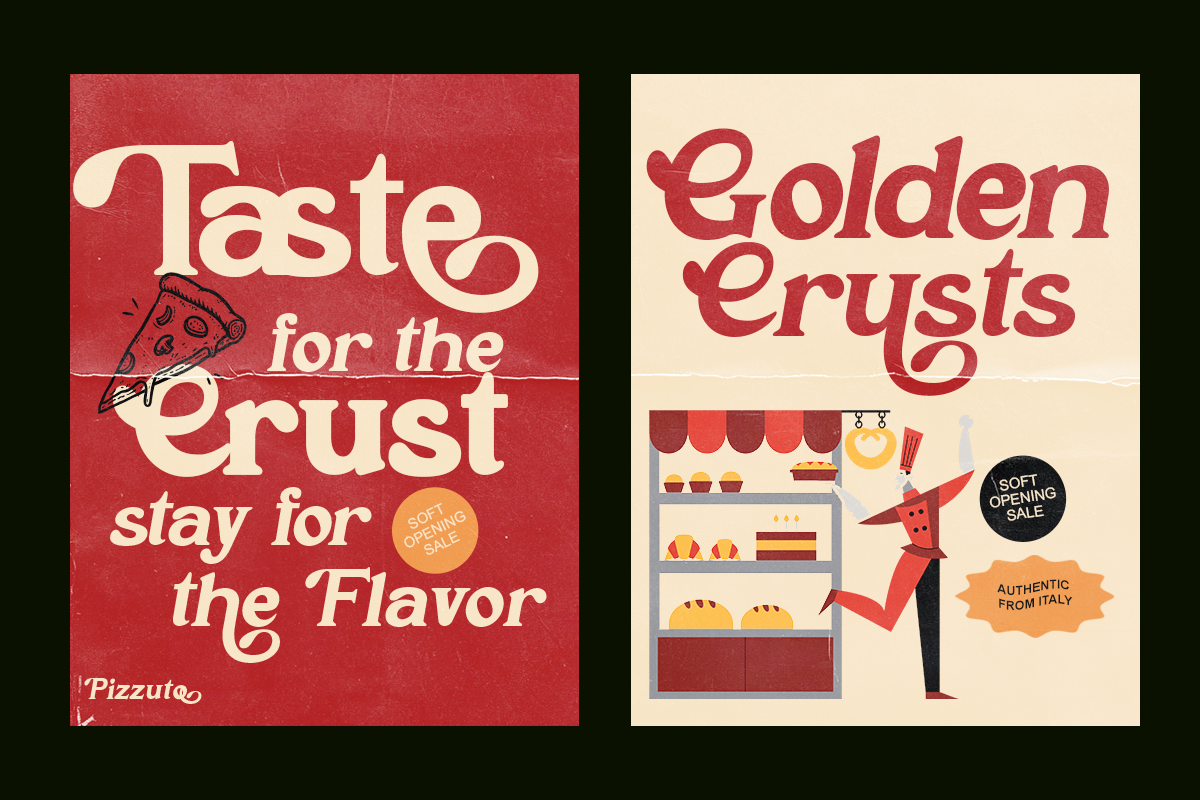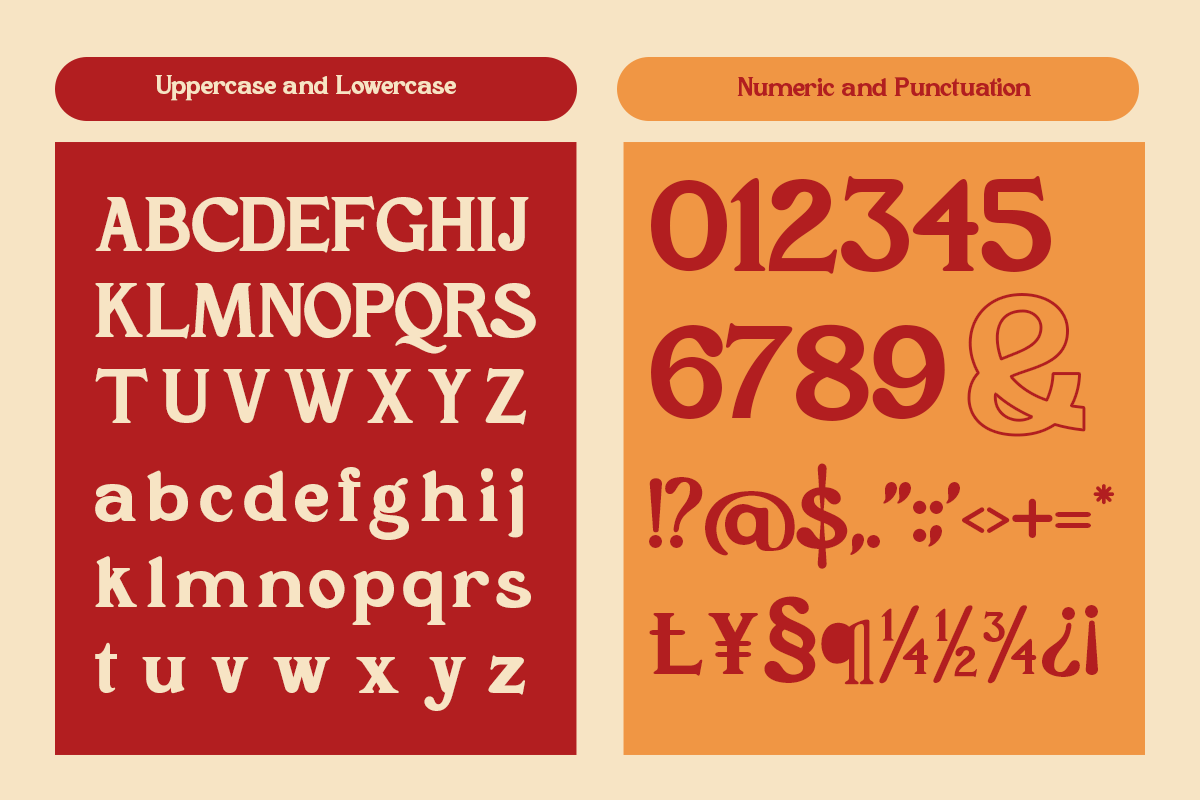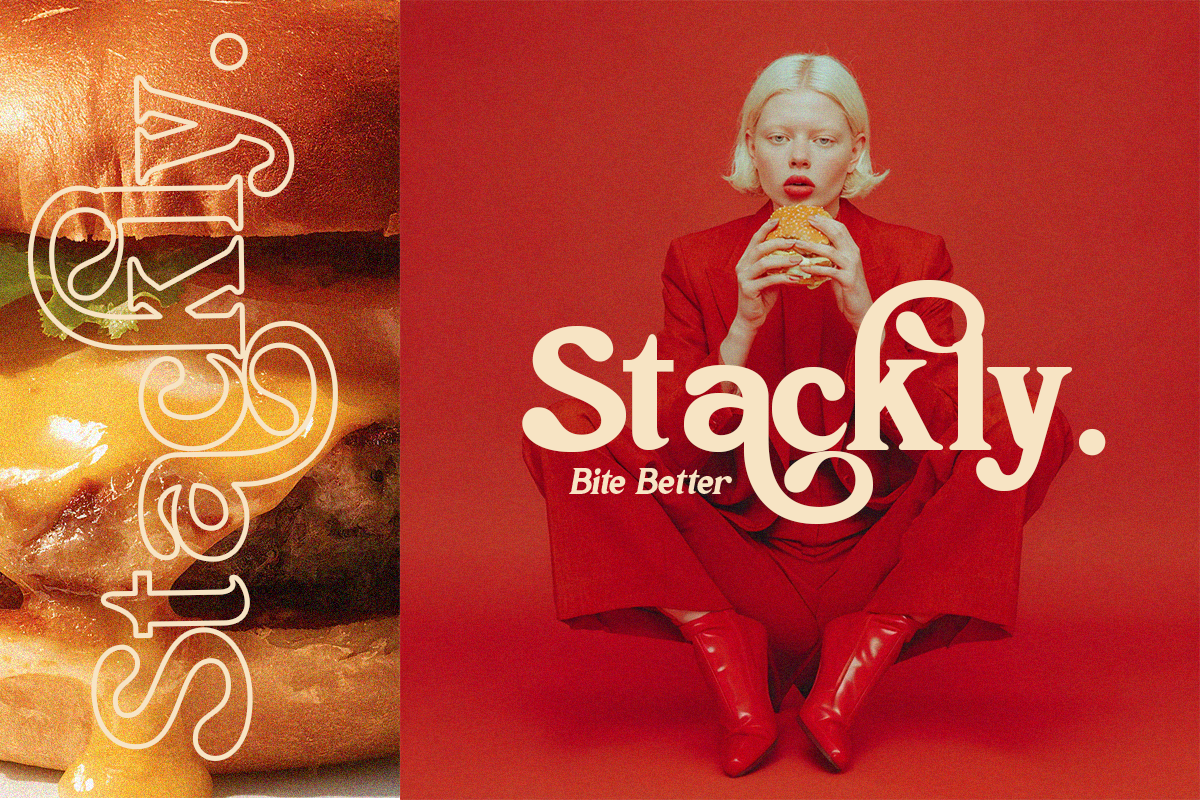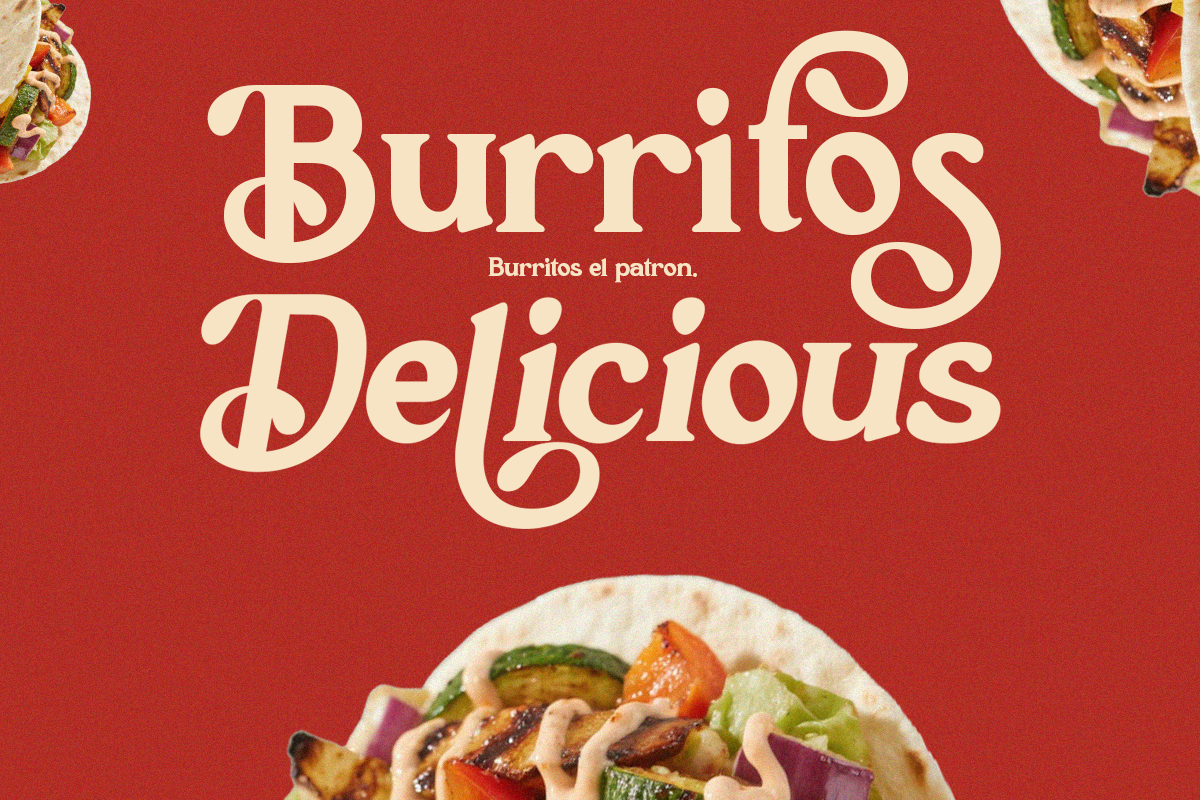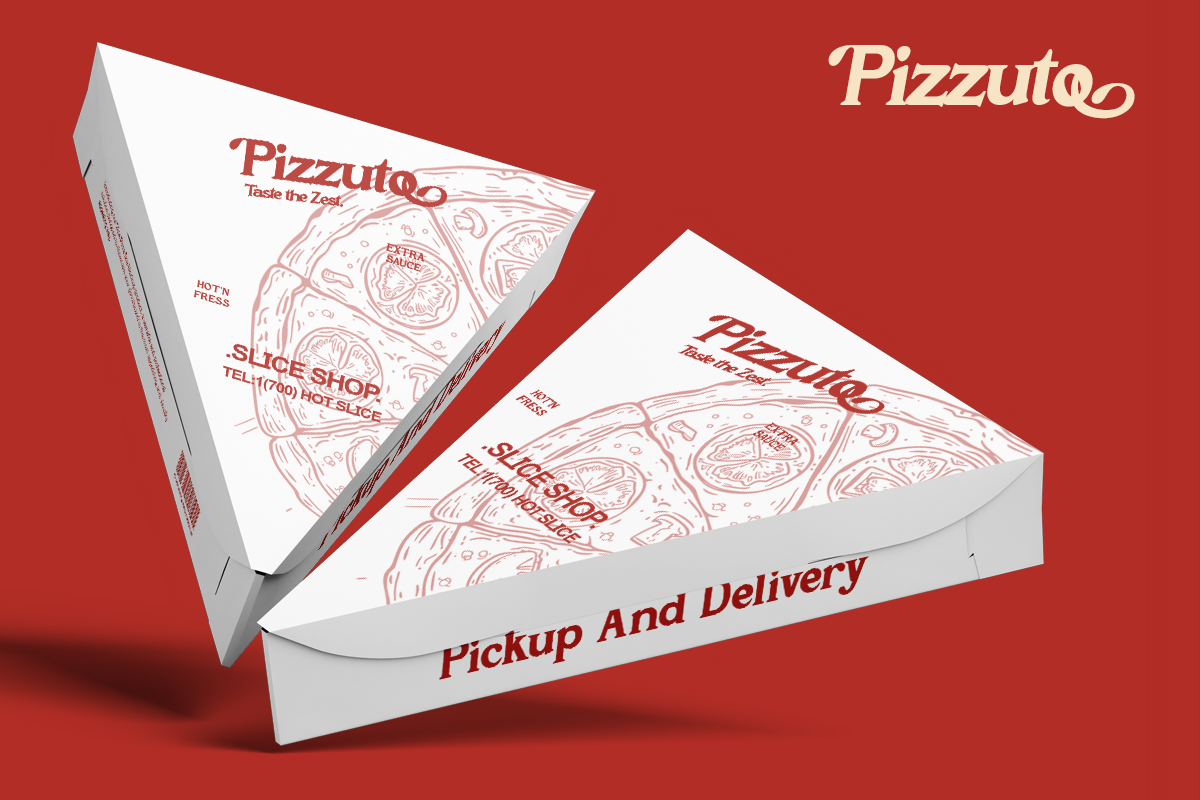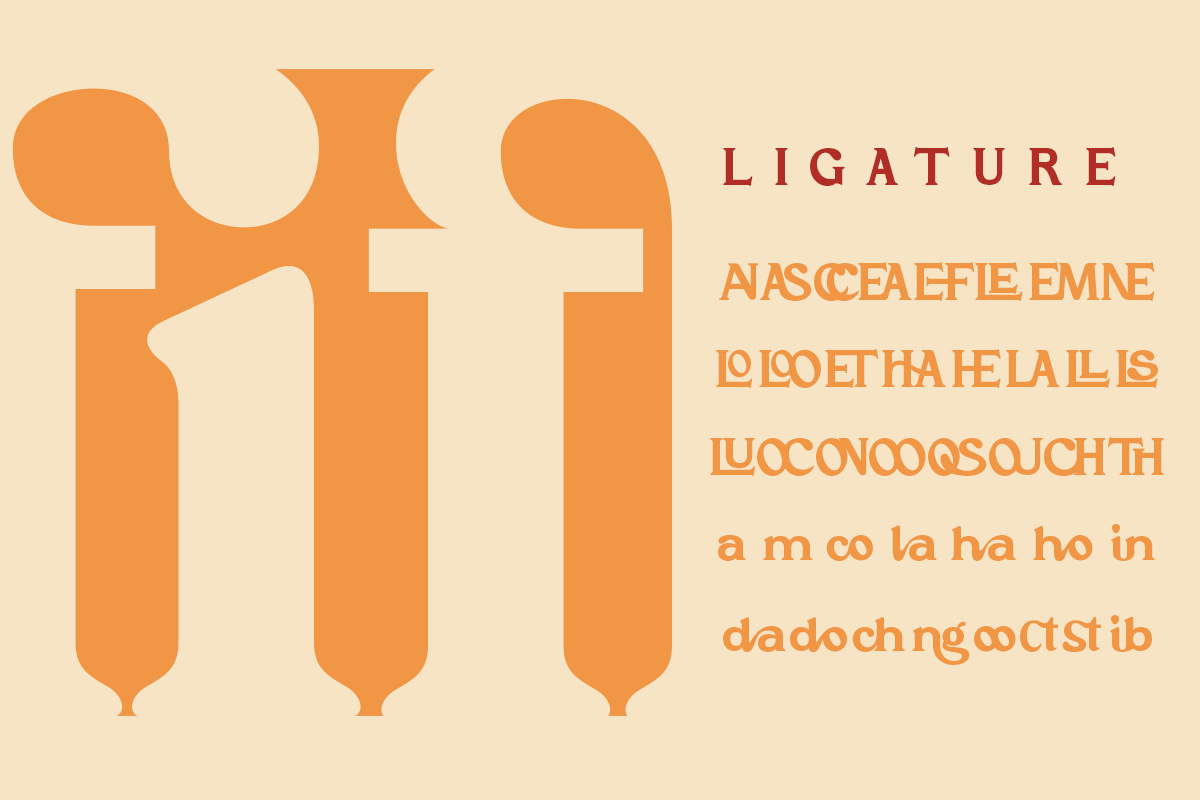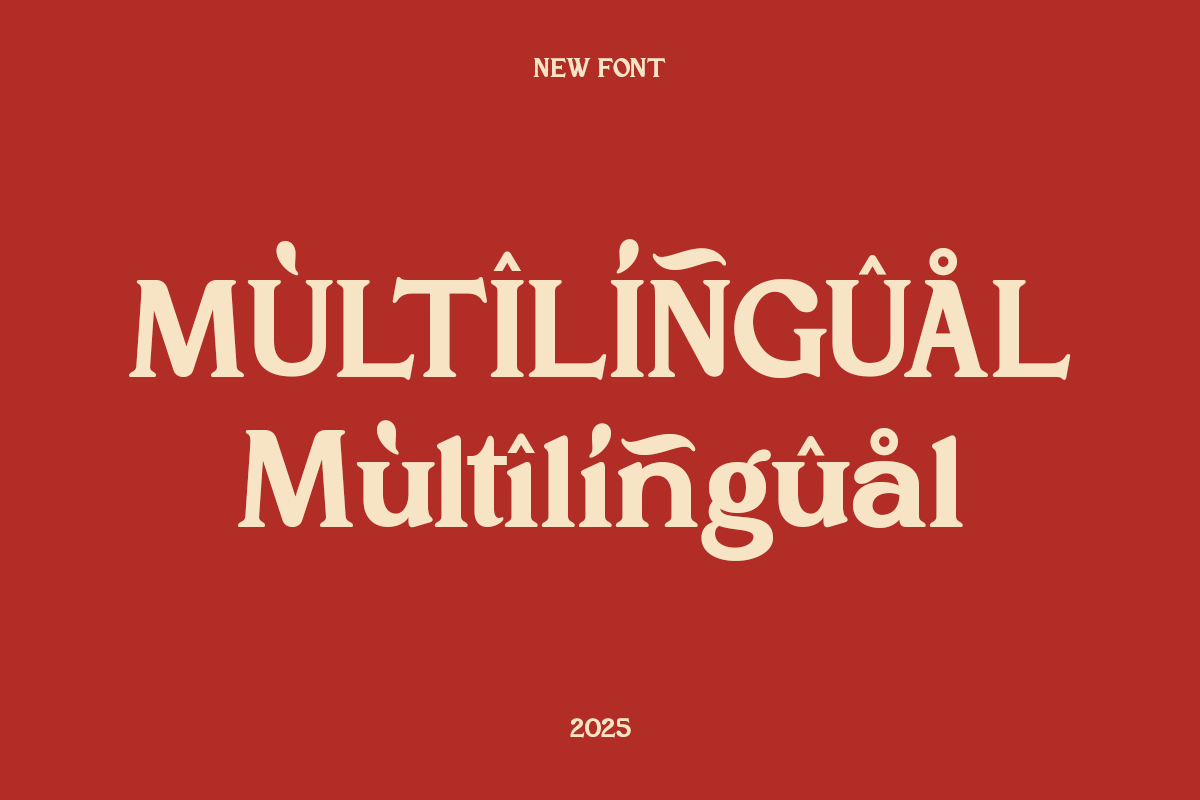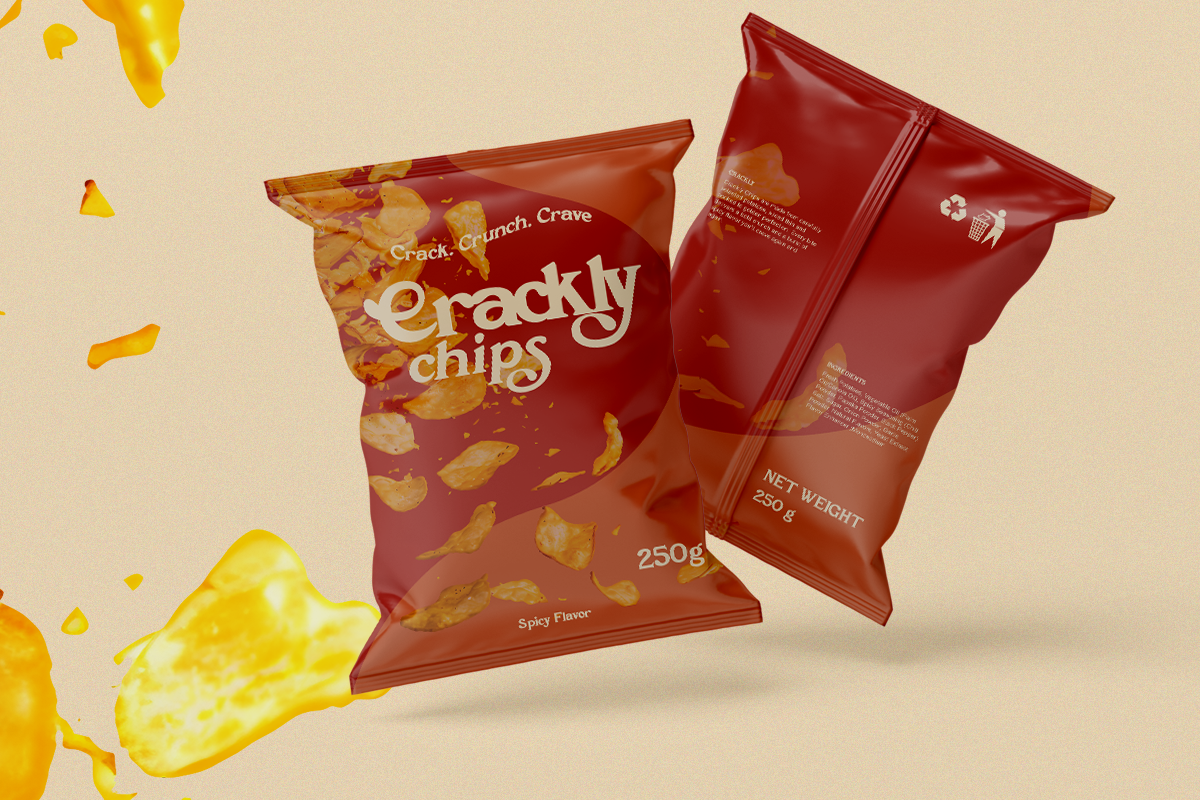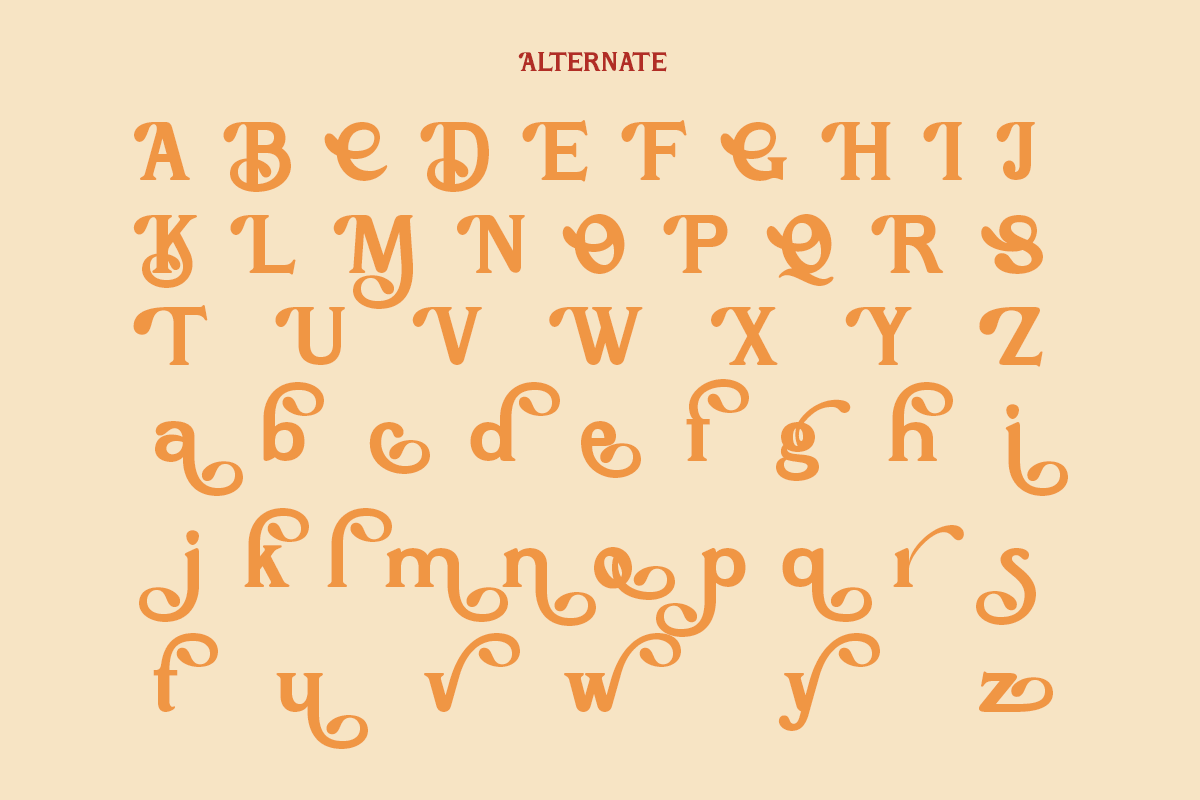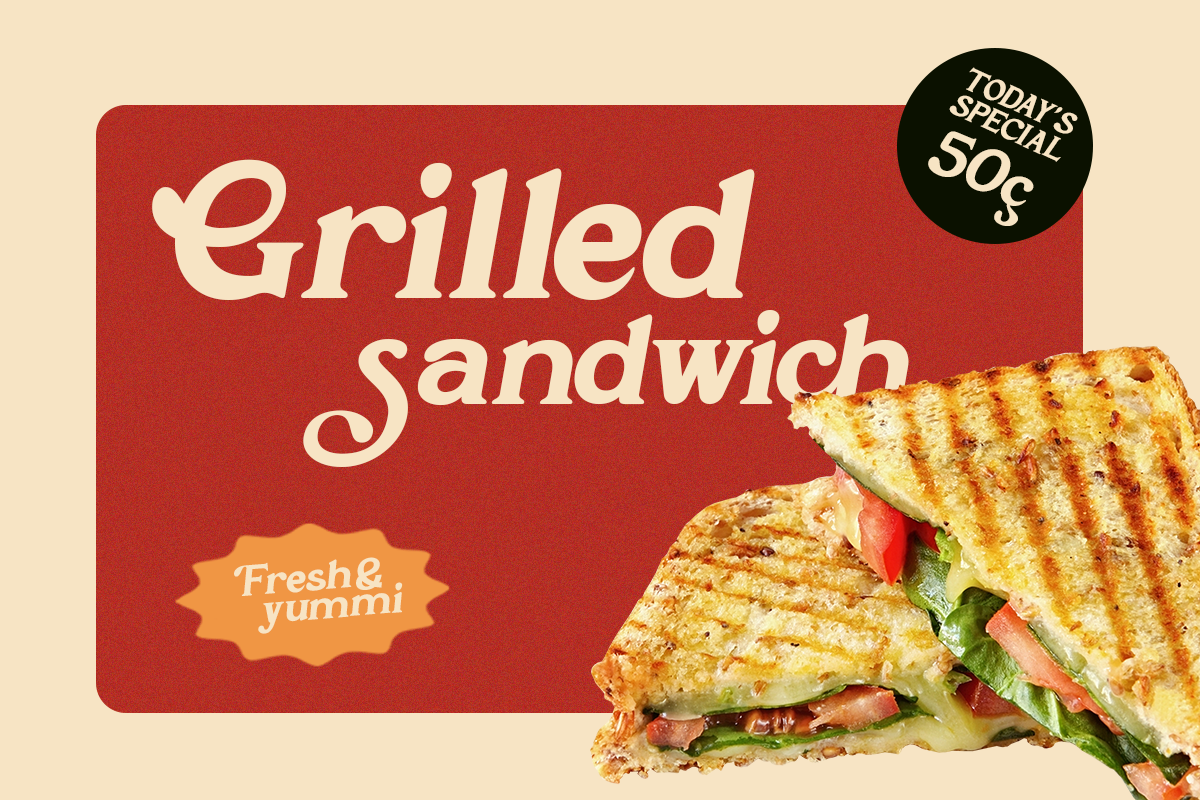
Keijing - Playful Decorative Serif
Keijing is a playful decorative serif designed for bold branding and expressive typography. Its unique curves and strong structure create a modern retro aesthetic ideal for logos, packaging, and poster design.
Keijing delivers distinctive personality while maintaining readability, making it perfect for branding identity, editorial layouts, and creative display projects.
- Regular & Italic
- Alternates & ligatures
- Decorative serif construction
- Bold display contrast